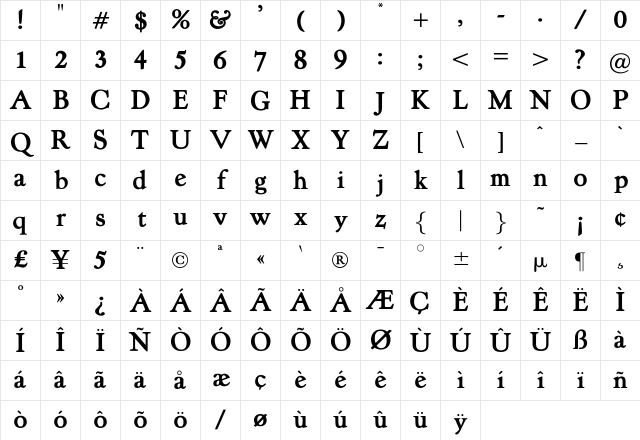
OPTI Kite Bold Free Font
OPTI Kite Bold
Foundry: Copr. Castcraft Software, Inc
Design Context for OPTI Kite
OPTI Kite is a composed and adaptable typeface that performs quietly and consistently across a wide range of design contexts. Its bold stroke weight gives it real presence on the page.
Pro Tip: Use OPTI Kite in both headline and body roles to test its range before committing to a single application.
Who designed the OPTI Kite Bold font?